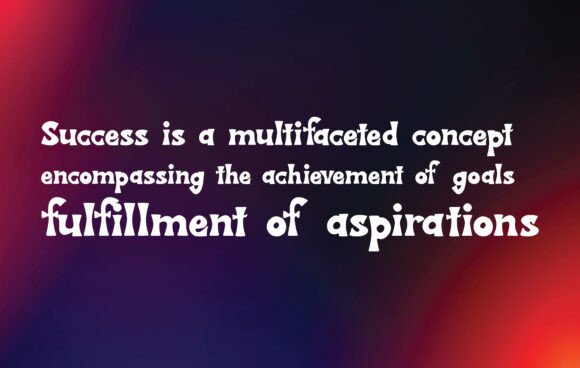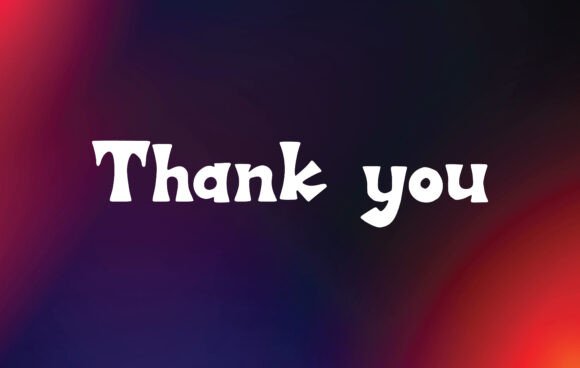
Introduction to Serval Font
Have you ever been in the middle of a creative project, pouring your heart and soul into a design, and suddenly you’re stuck on the perfect font to bring it all together? That’s where the Serval Font comes in – a stunning handwritten font that’s about to take your creative ideas to new heights.
Whether you’re a seasoned designer or just starting out, the Serval Font is a valuable addition to your design arsenal. With its beautiful and unique style, it’s the perfect choice for creating eye-catching logos, branding, and quotes that stand out from the crowd. Plus, with a transparent background and high-quality design, you can trust that your project will look professional and polished. And the best part? The Serval Font is available for free download, making it an accessible design resource for any creative project.
Serval Font
- High-quality design resource ideal for creative projects, offering a unique and elegant aesthetic.
- Features a transparent background, allowing for seamless integration into various design environments.
- Comes in a single weight, making it easy to use and integrate into designs without adding unnecessary complexity.
- Perfect for designers seeking a versatile and stylish font for their creative projects, from digital art to print materials.
Honest Review: Serval Font
I recently stumbled upon the Serval Font, and I have to say, it’s been a game-changer for my creative projects. With a high quality design and a transparent background, this font is perfect for any design resource I need.
- What works well: ✨ The Serval Font is incredibly versatile, making it suitable for a wide range of creative projects. It’s also incredibly easy to use, with a free download option that saves me time and effort.
- What works well: ✨ The font is highly customizable, allowing me to adjust the size, color, and style to fit my design needs.
- What works well: ✨ The Serval Font is also highly legible, making it perfect for body text, headings, and even signage.
However, there are a few limitations to keep in mind. ⚠️ The font may not be suitable for complex or detailed designs, as it can be a bit too simple for certain applications.
Overall, I’m really impressed with the Serval Font. It’s a high-quality design resource that’s perfect for any creative project. With its transparent background, free download option, and high level of customization, it’s a must-have for any designer. I highly recommend giving it a try!
Serval Font
Using Serval Font in Creative Projects
The Serval Font is perfect for use in creative projects, such as graphic design, digital art, and typography. It’s a versatile font that can be used in a variety of contexts, from business cards to posters.
Tips for Getting the Most Out of Serval Font
To get the most out of the Serval Font, try using it with a transparent background to create a modern and sleek look. You can also experiment with different font sizes and styles to add visual interest to your design.
The Serval Font is perfect for use in a variety of creative projects, including:
- Digital art and graphics
- Typography and word art
Alternatives to Serval Font
Fontin is a high-quality, sans-serif font ideal for creative projects requiring a modern and clean look. It’s available for free download and features a transparent background, making it perfect for overlaying text on images.
Fontin is similar to Serval Font in terms of its clean and minimalistic design, but it has a more subtle feel and is better suited for body text. Use Fontin for headings and titles in your design project.
Playfair Display is a luxurious, high-end font perfect for creating a sophisticated and elegant look. It’s a serif font with a vintage feel, ideal for creative projects requiring a touch of sophistication.
Playfair Display is different from Serval Font in terms of its ornate design and serif style. It’s better suited for titles, headings, and other high-impact design elements. Use Playfair Display for creative projects requiring a luxurious feel.